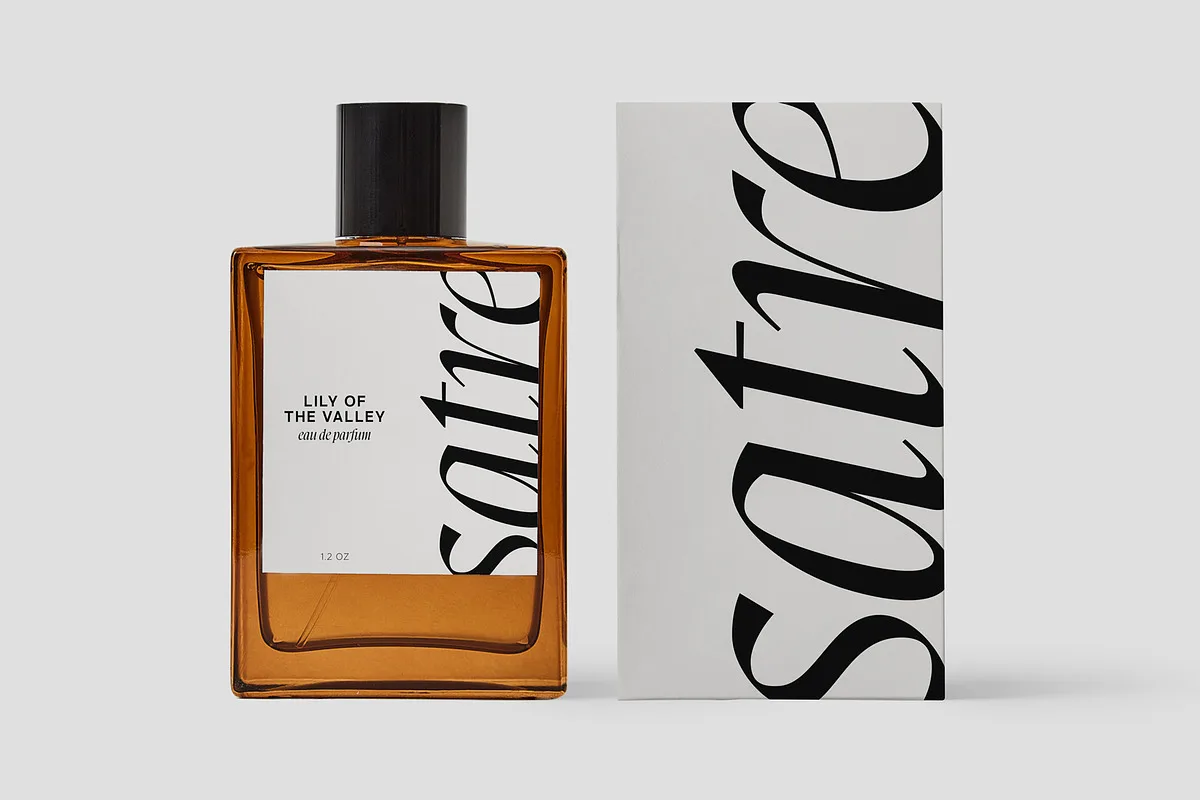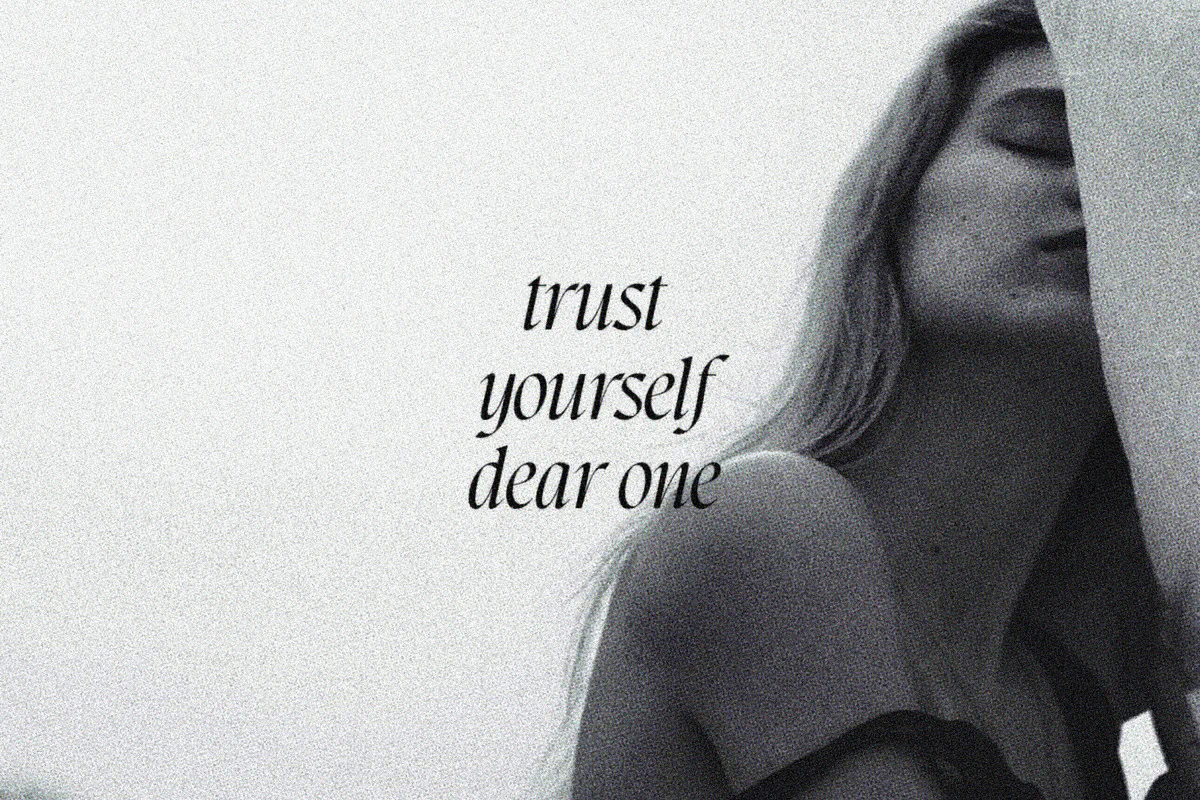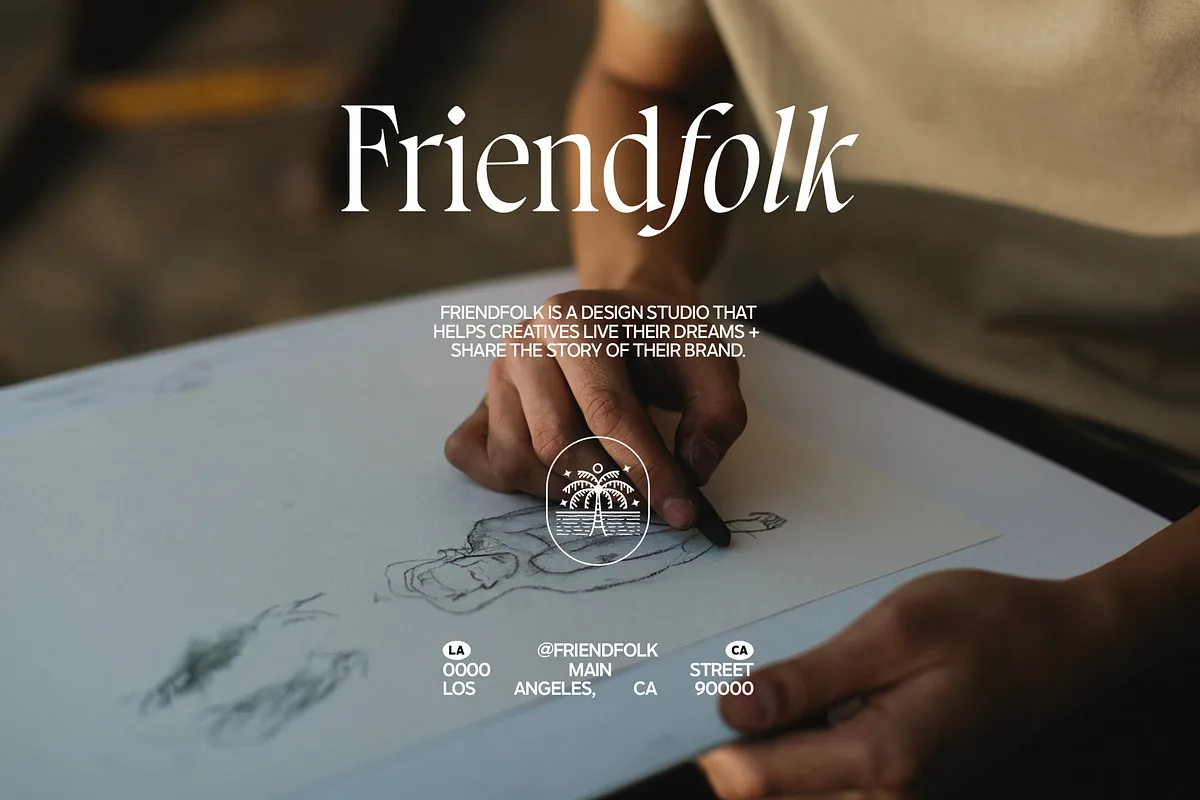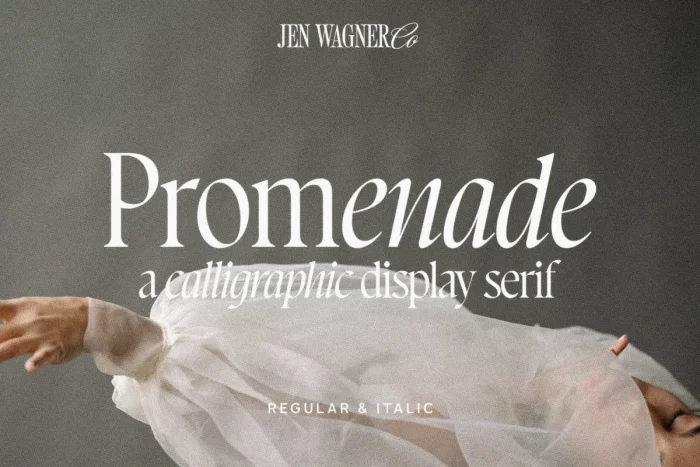
Promenade is a calligraphic serif that started on paper with a flat nib pen (see the 6th image), and blossomed into a full serif with italics. At its core, this font is just… beautiful. It’s elegant, it’s crisp, it’s delicate, but can still hold its own. As I was creating the graphics, I just couldn’t get over the flow of the letters – especially the italic.
Promenade Calligraphic Serif Font